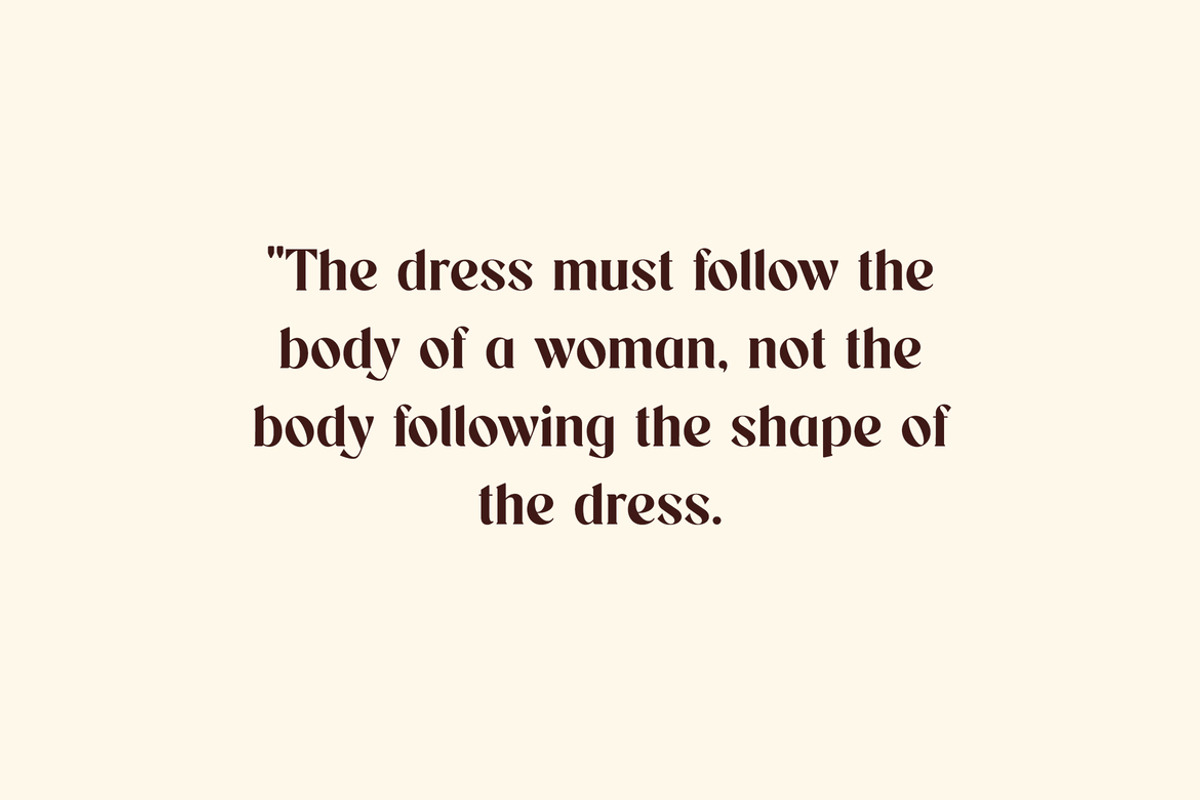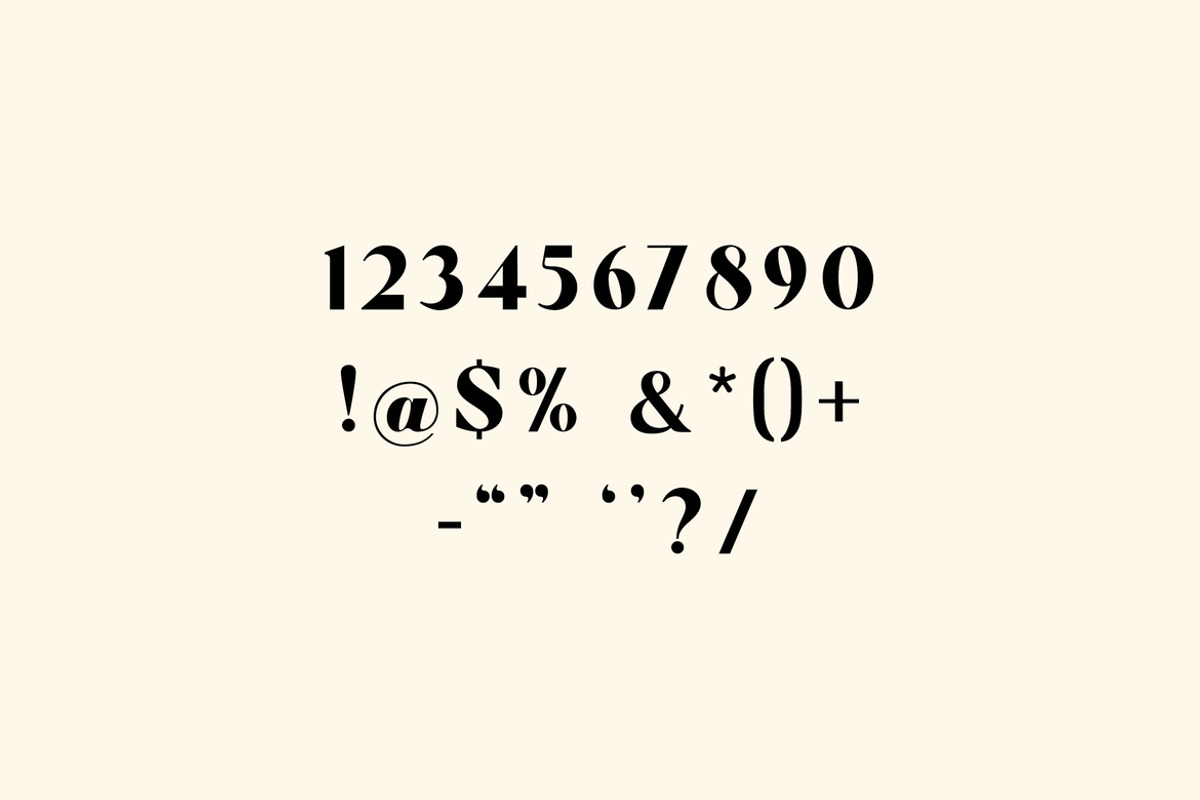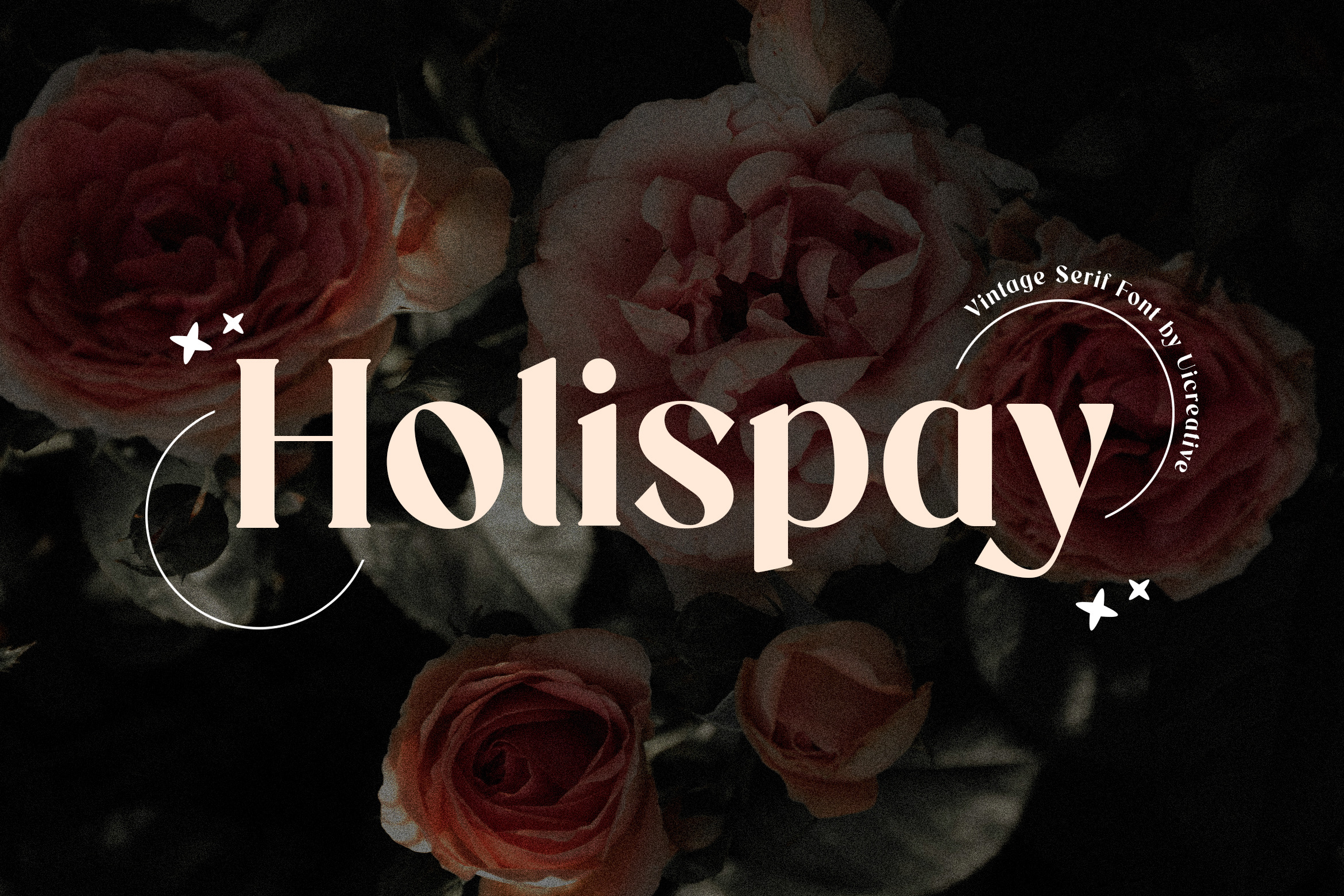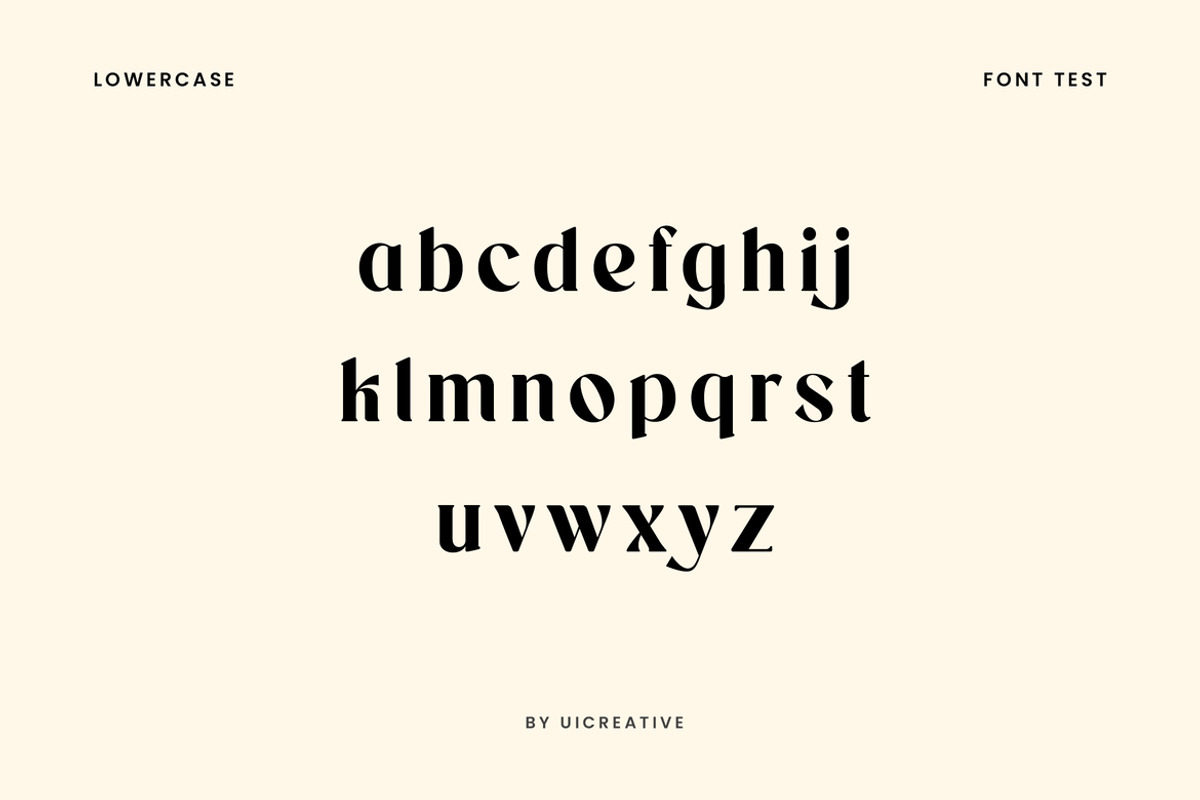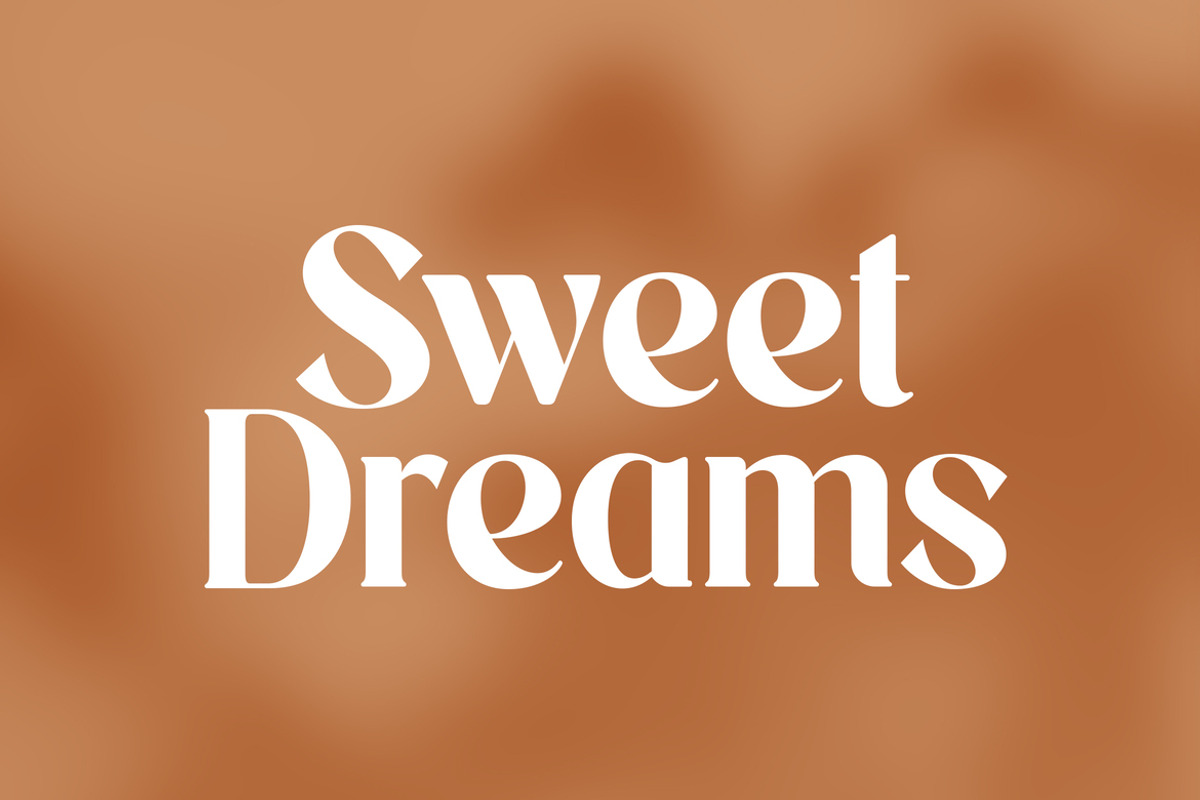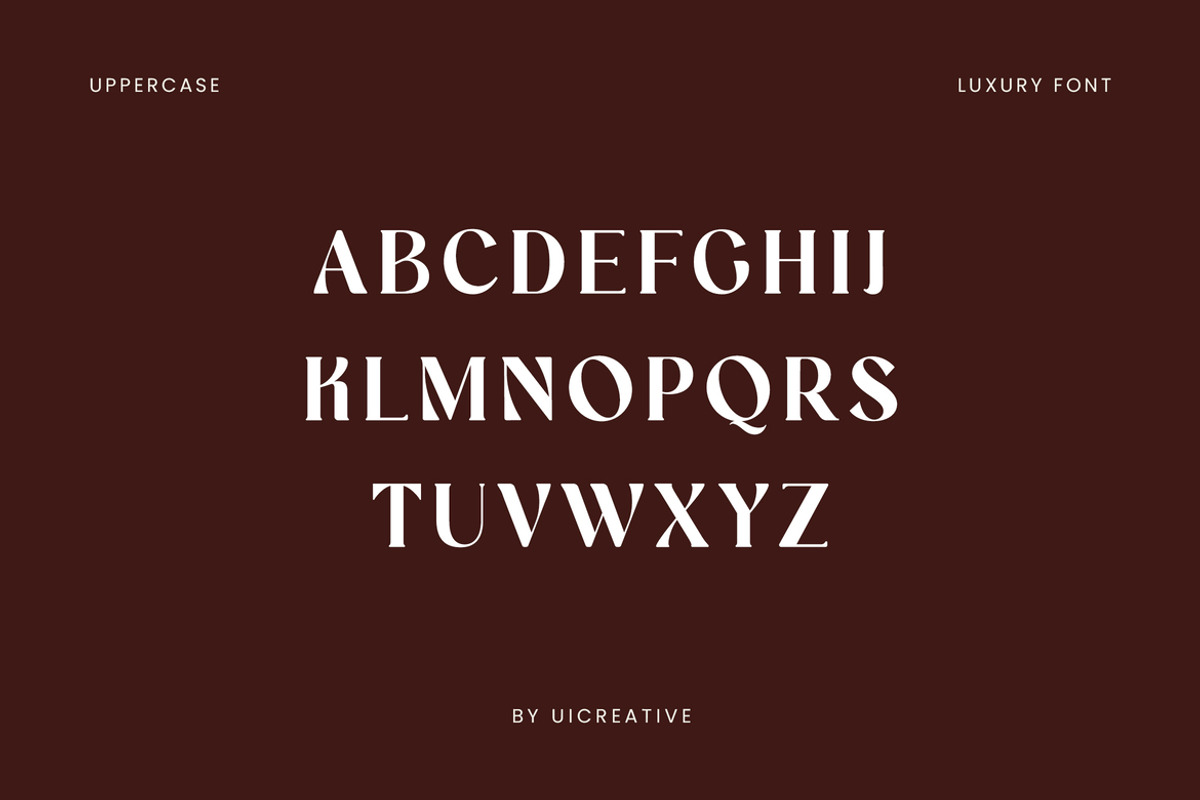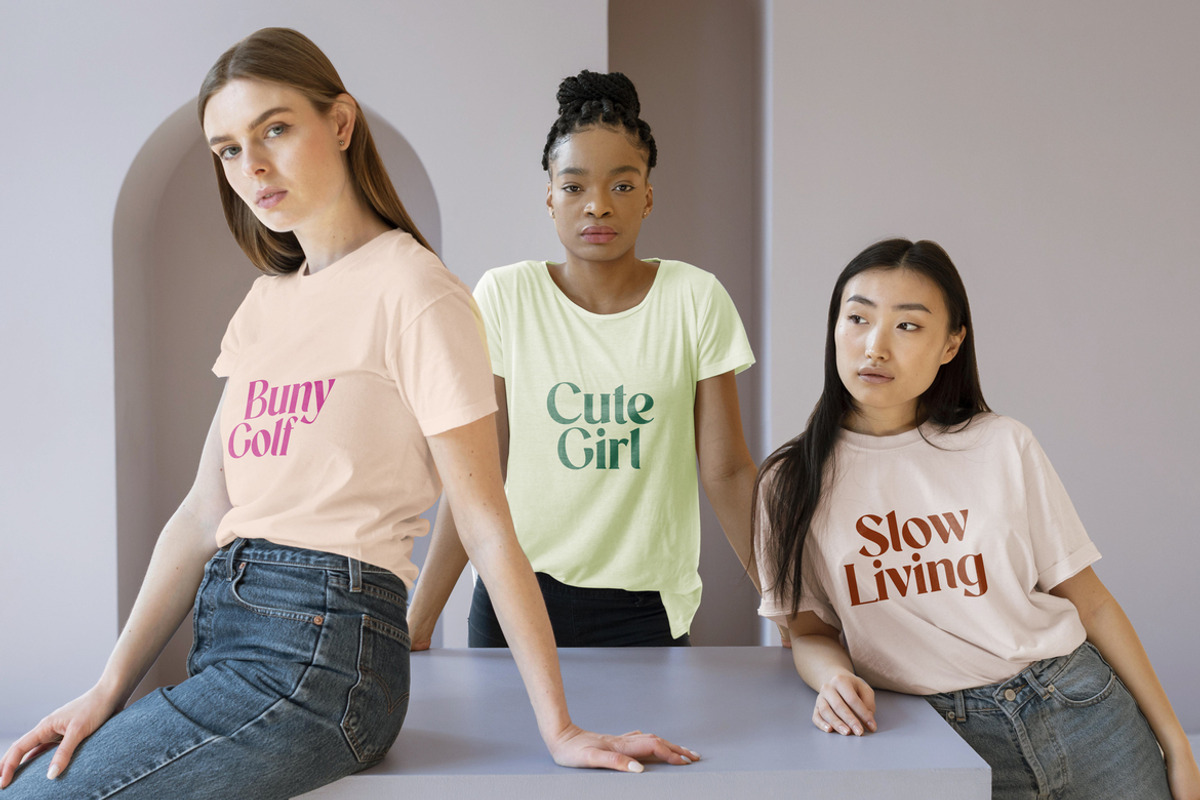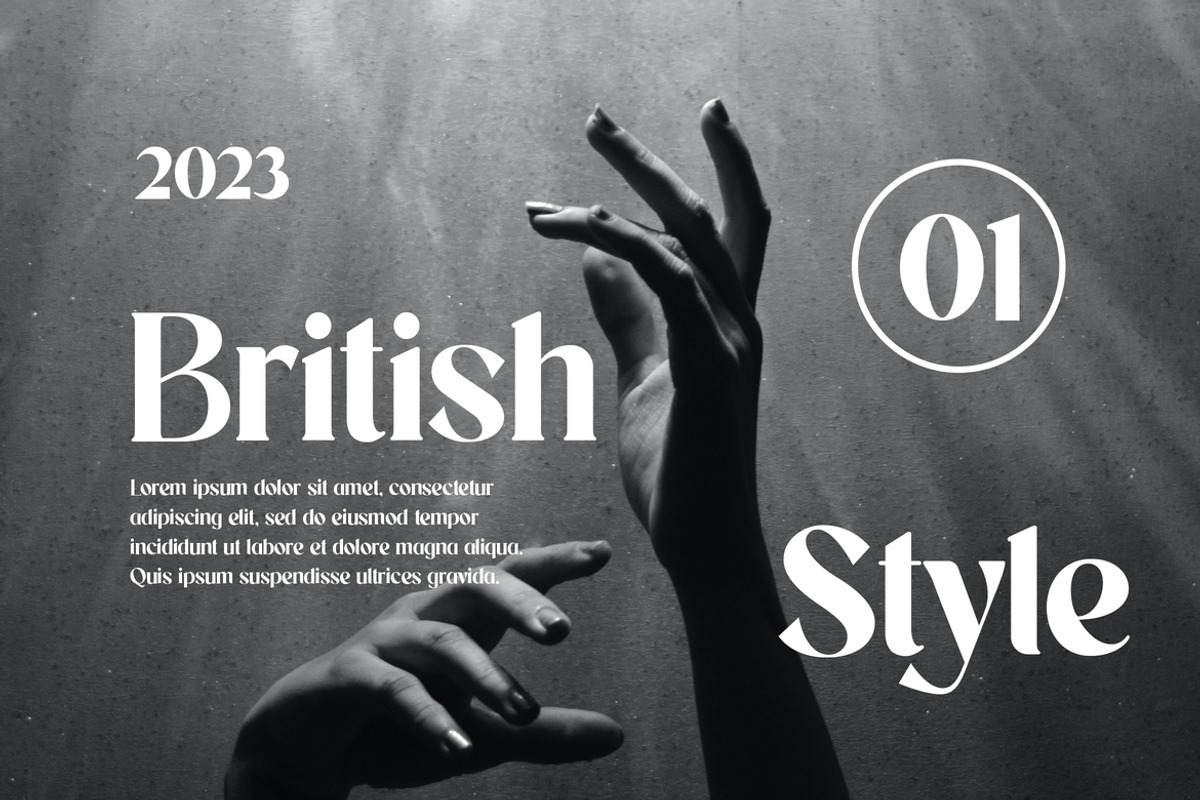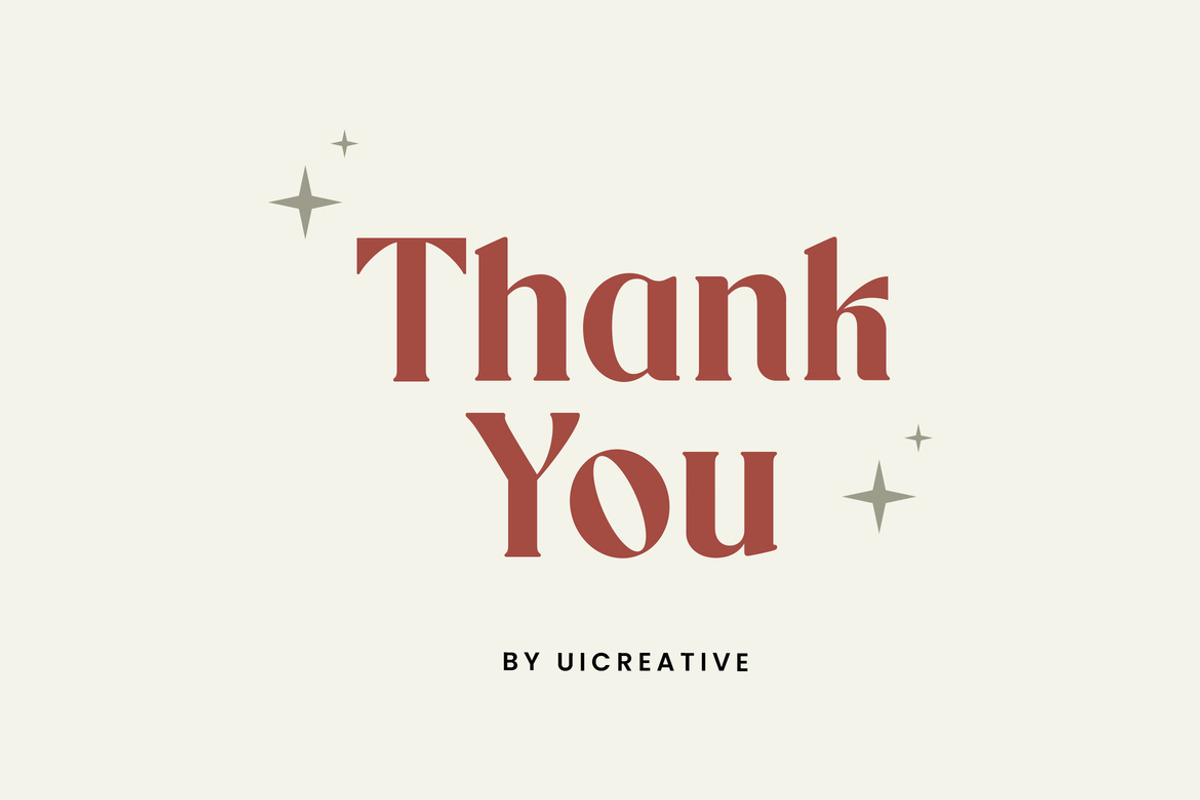
Holispay Vintage Serif Font
Introducing our new product the name is Holispay Vintage Serif Font. Modern Serif font that feels beautiful classy, elegant, and modern. This font is ideally suited for a wide variety of projects, such as signature, stationery, logo, wedding, typography quotes, magazine or book covers, website headers, clothing, branding, packaging design, and more. Also, fashion-related branding or editorial design displays both masculine and feminine qualities.